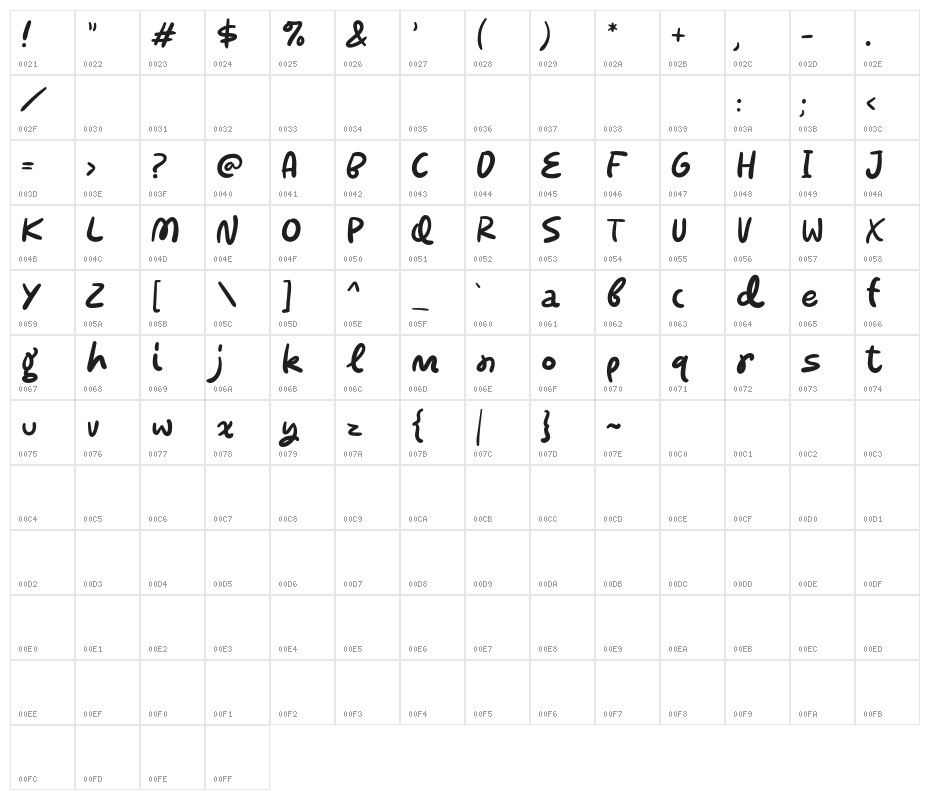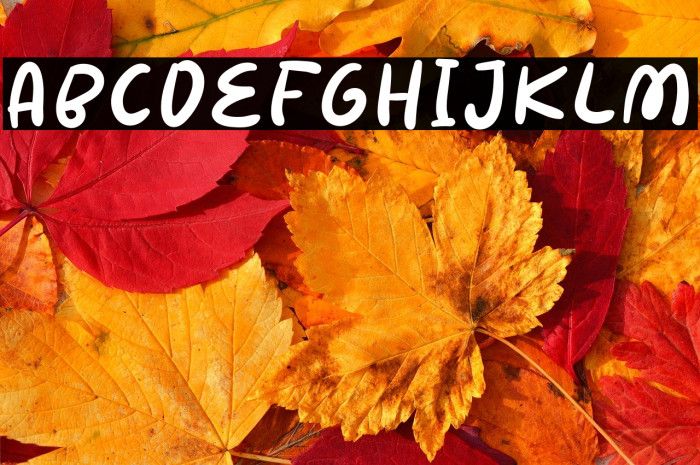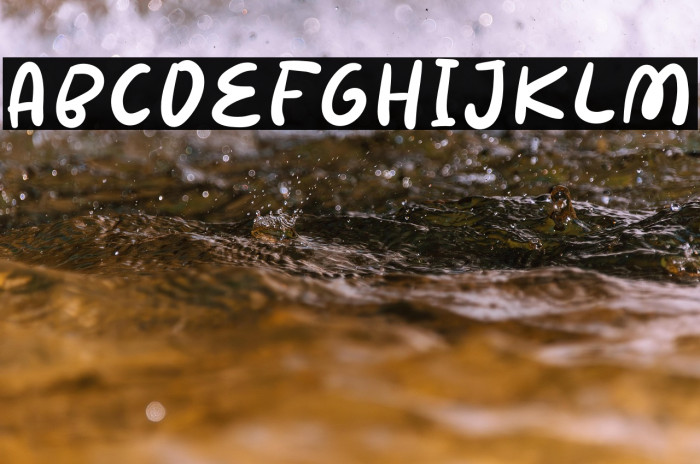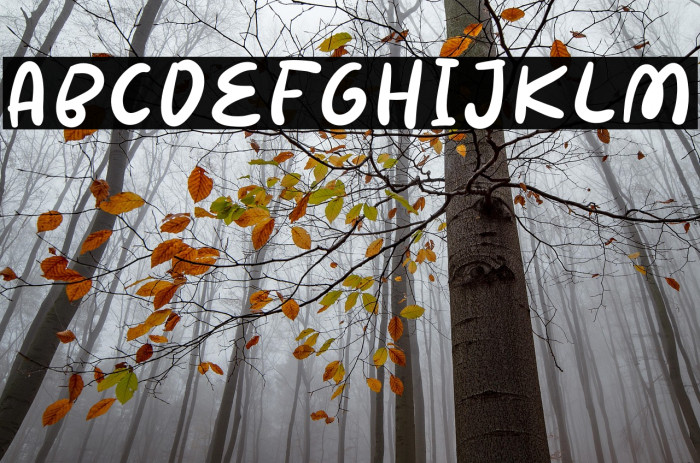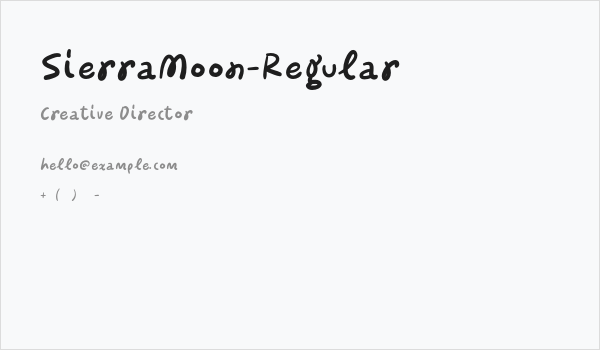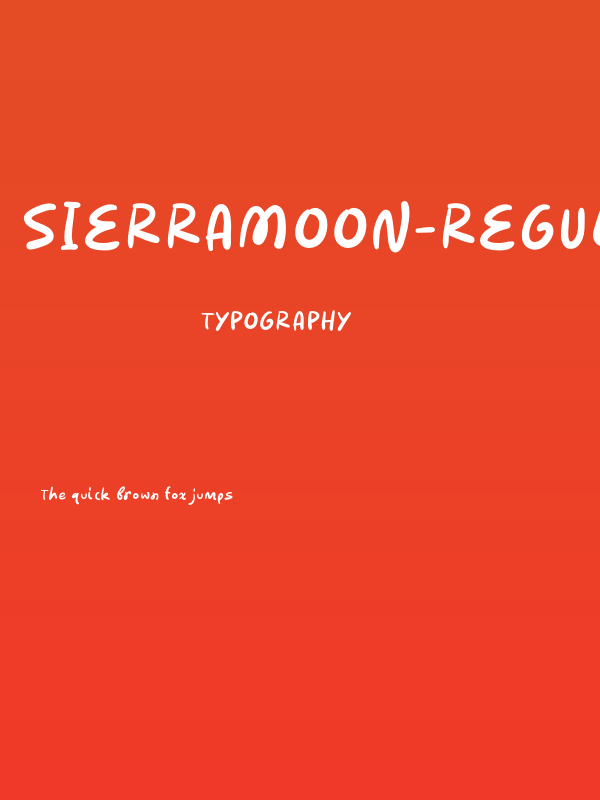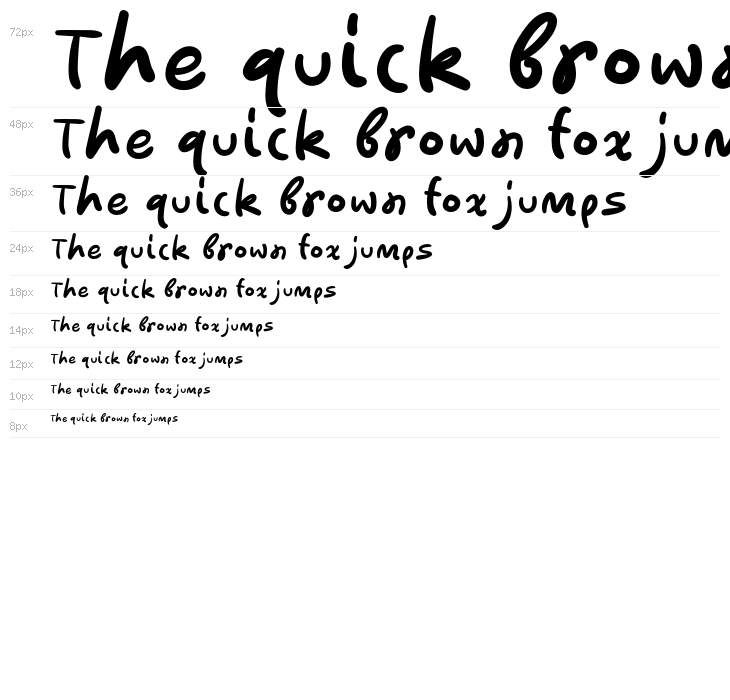
SierraMoon-Regular Font
| Gesamtstil | Casual, Artistic |
| Anwendungsfall | Headlines, Logos, Invitations |
| Vorgeschlagene Projekte | Ideal for greeting cards, invitations, personal branding, and creative projects that require a friendly, approachable look. |